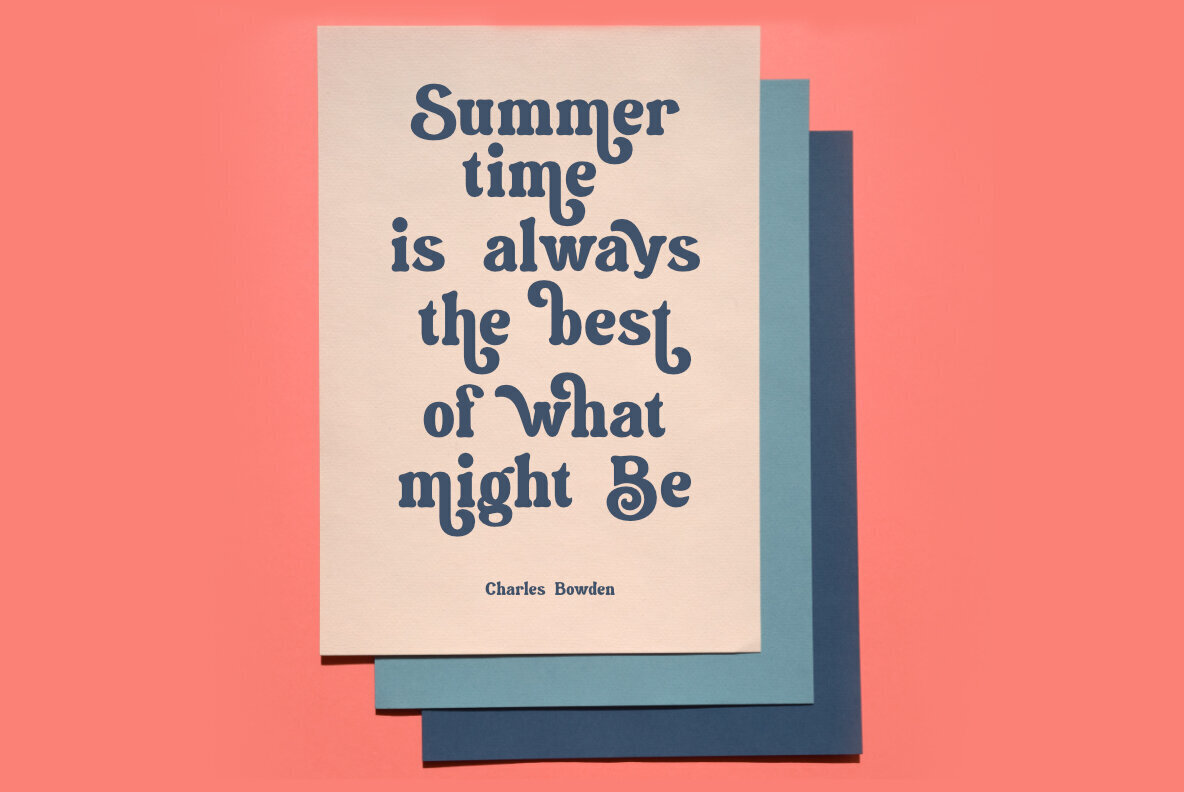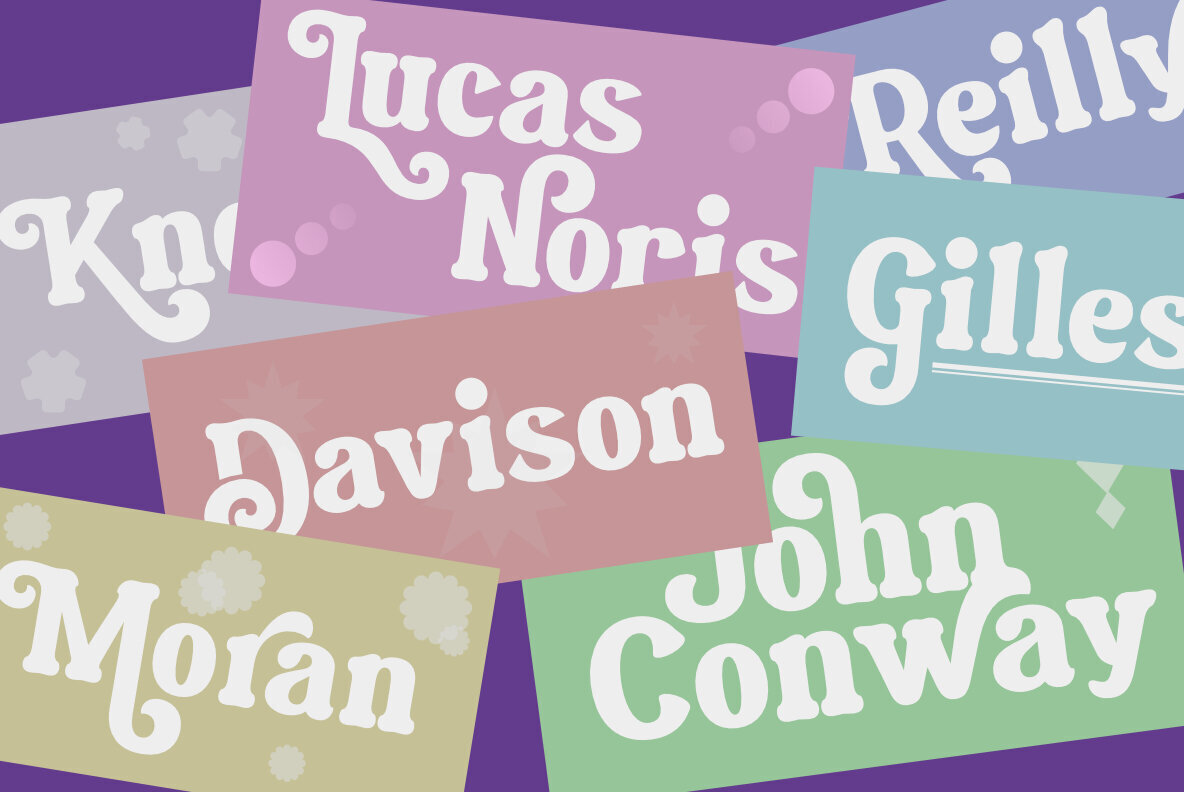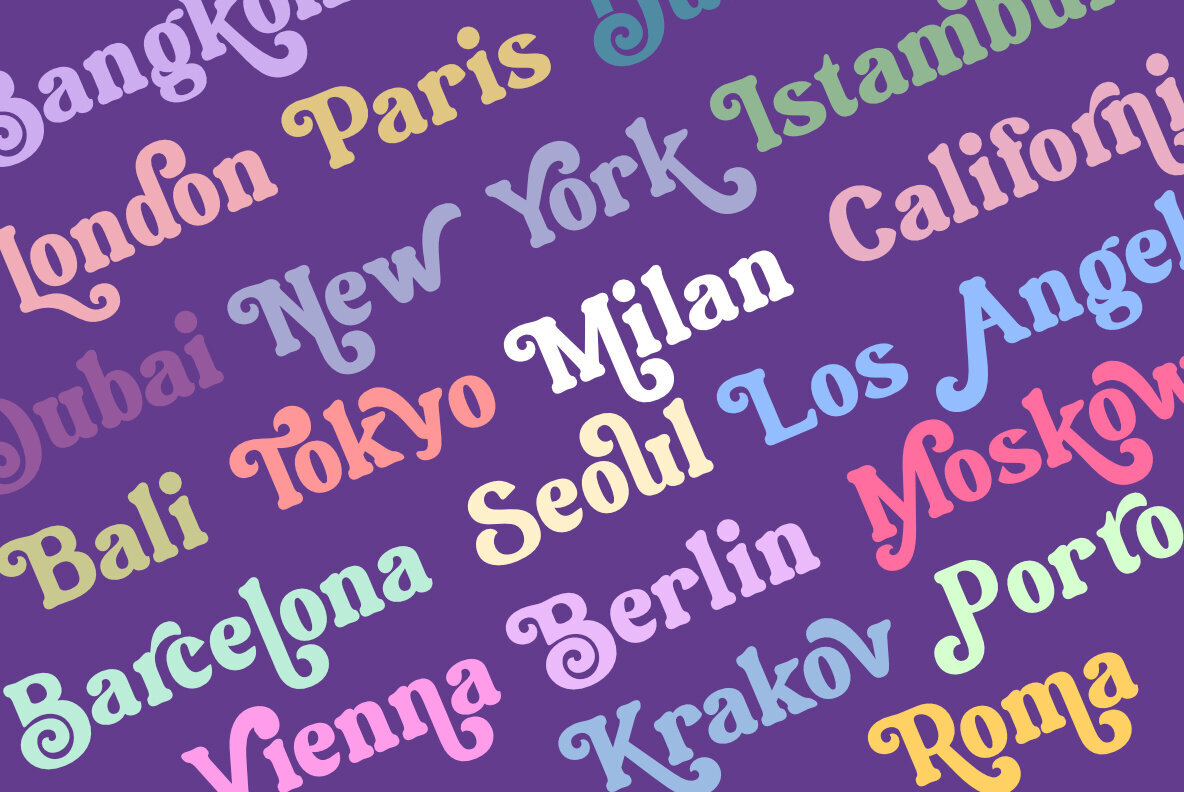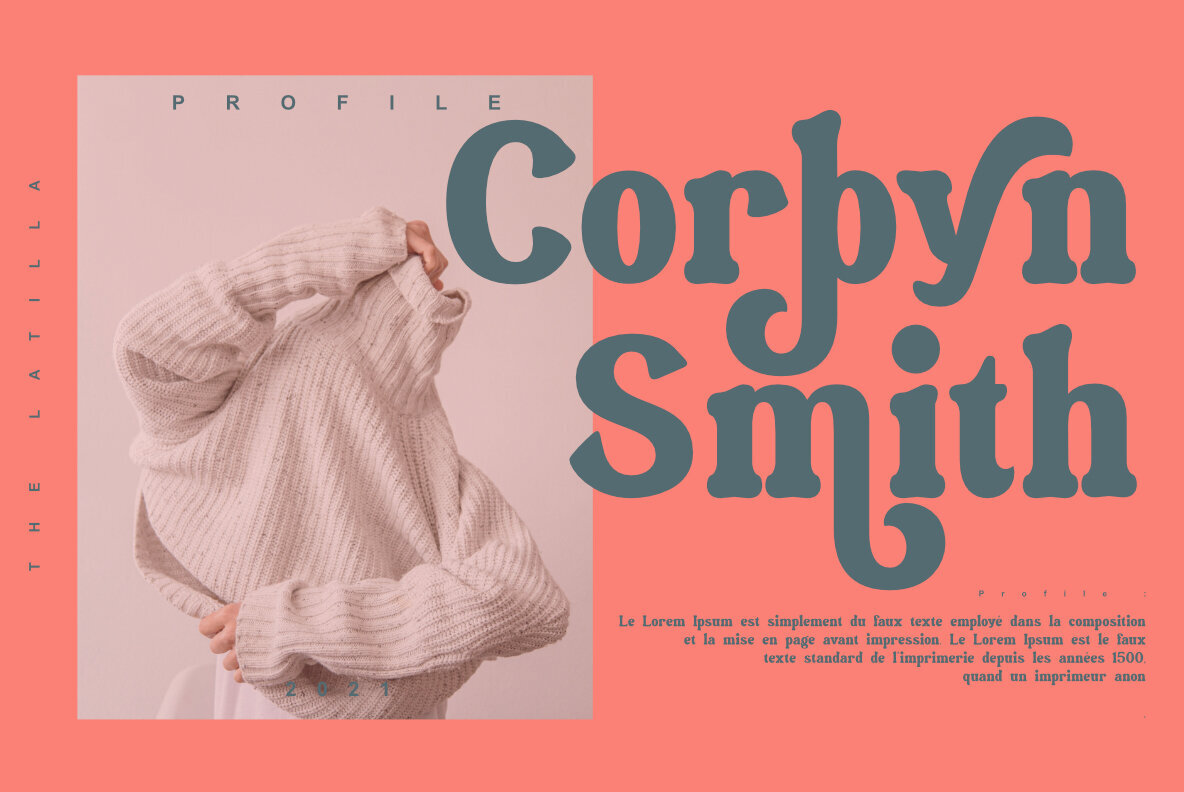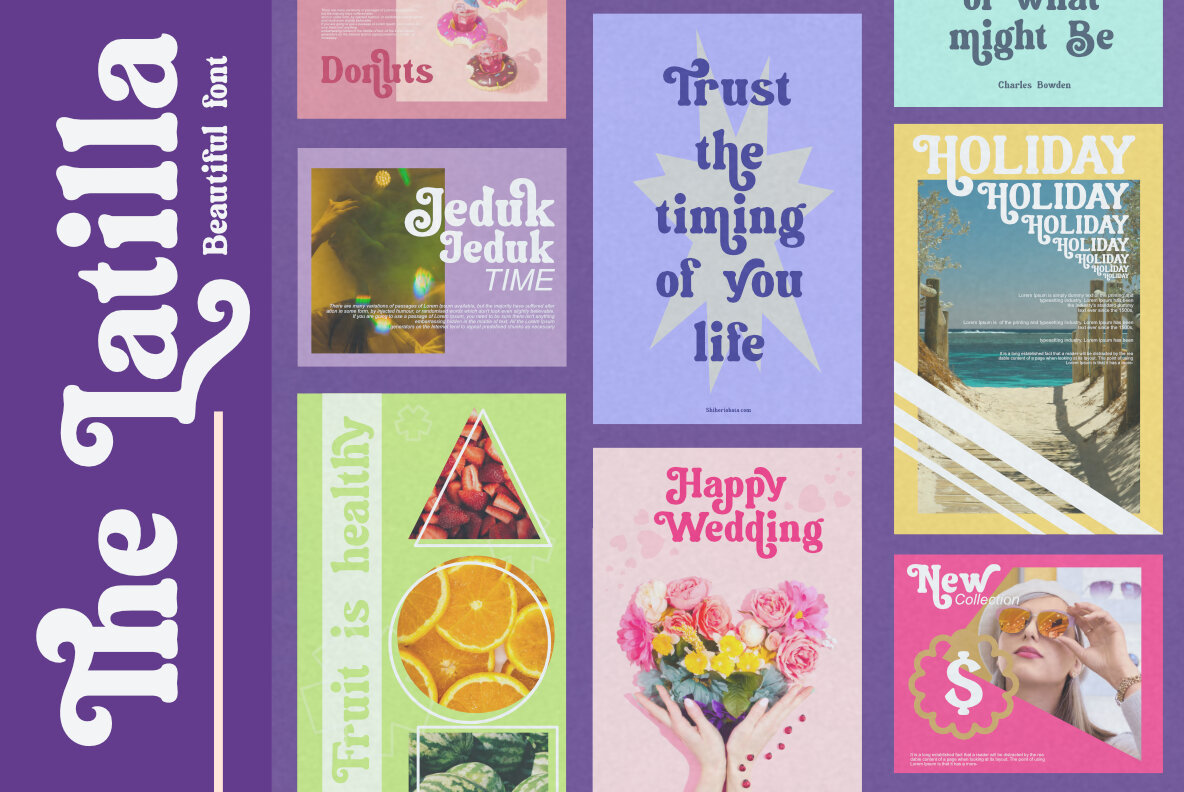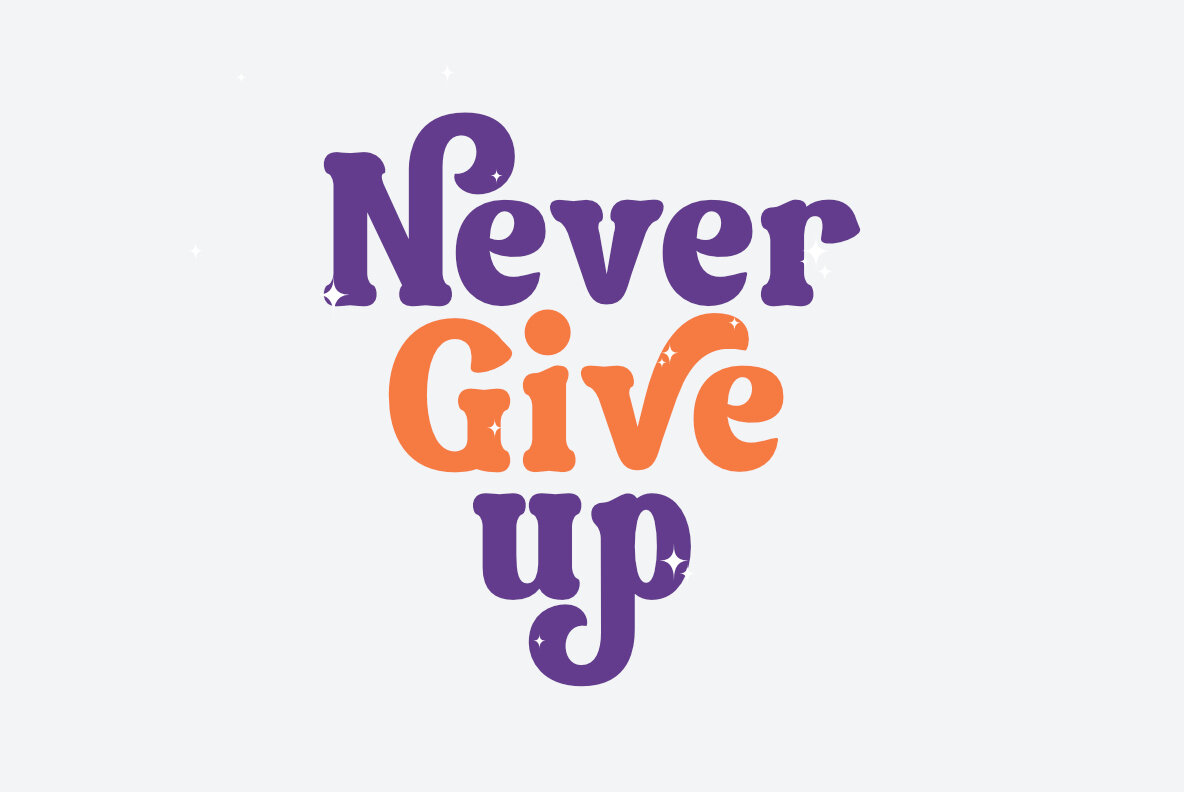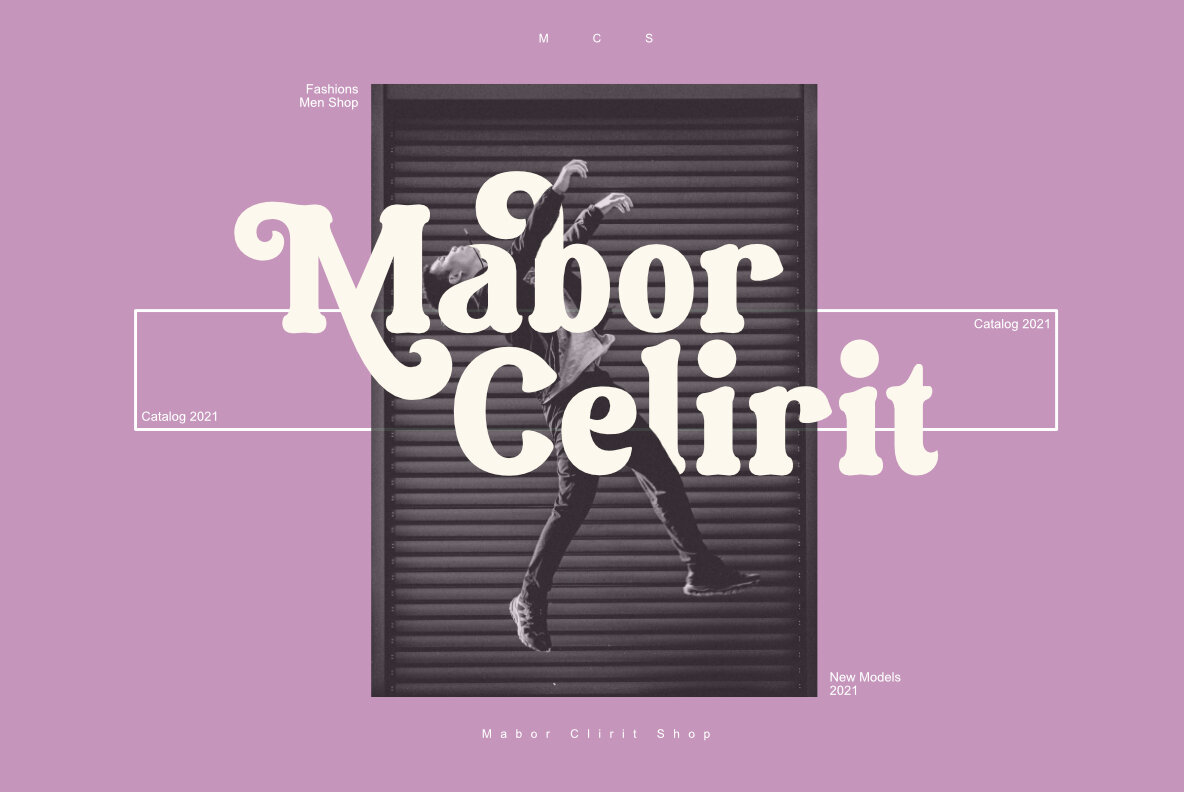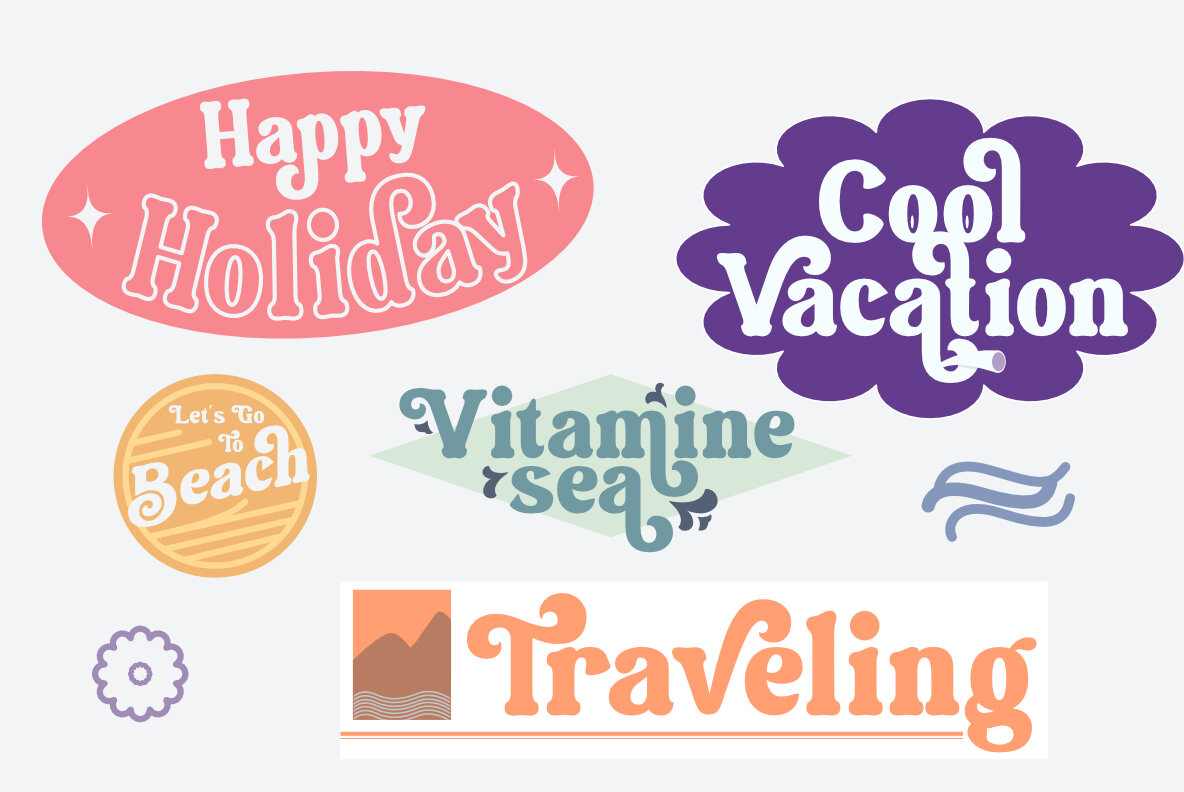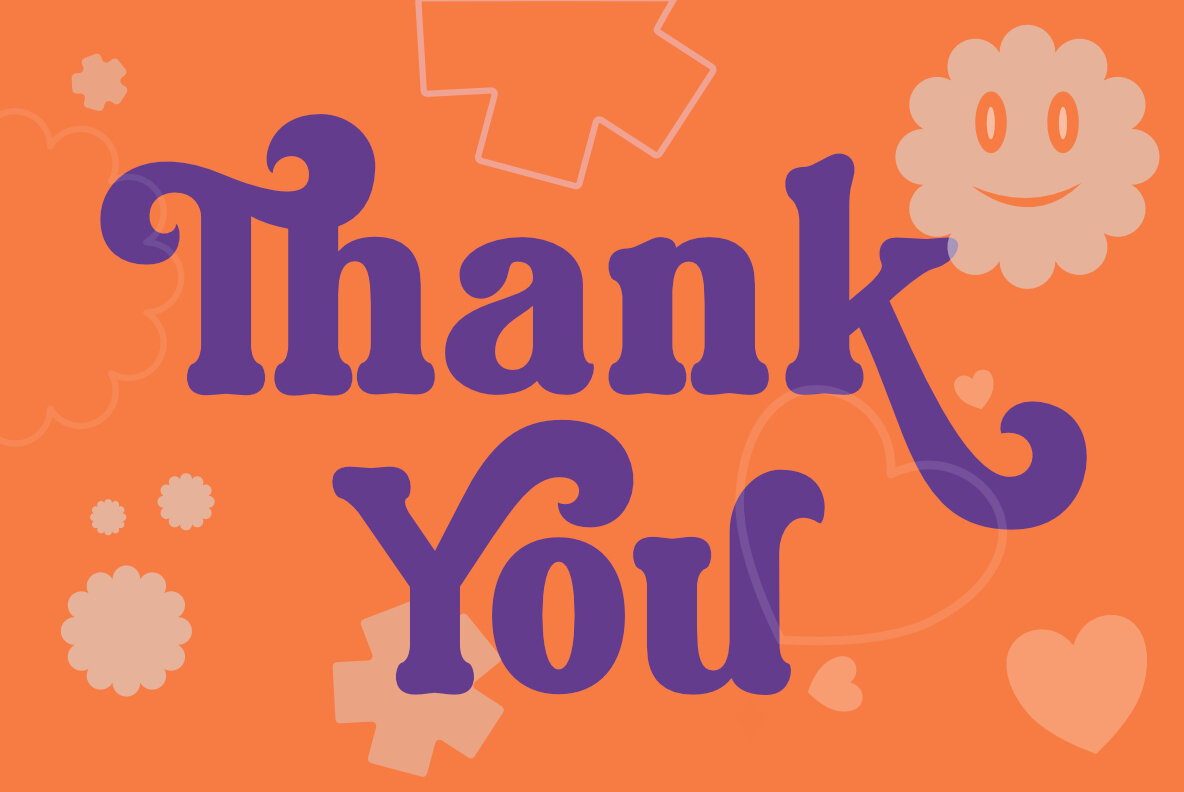
Latilla
Latilla by Khoir Typework captures the essence of 90s design with its retro serif style, seamlessly transporting your projects back in time. This typeface offers creative flexibility with its diverse range of alternatives, perfect for achieving an authentic vintage aesthetic. Whether you are designing logos or crafting editorial content for magazines, Latilla provides the timeless charm that resonates across various media.Latilla: A Nostalgic Serif Inspired by the 90s